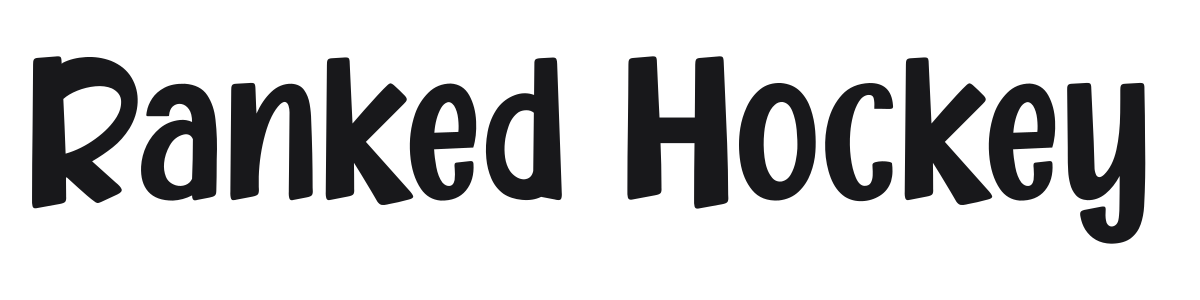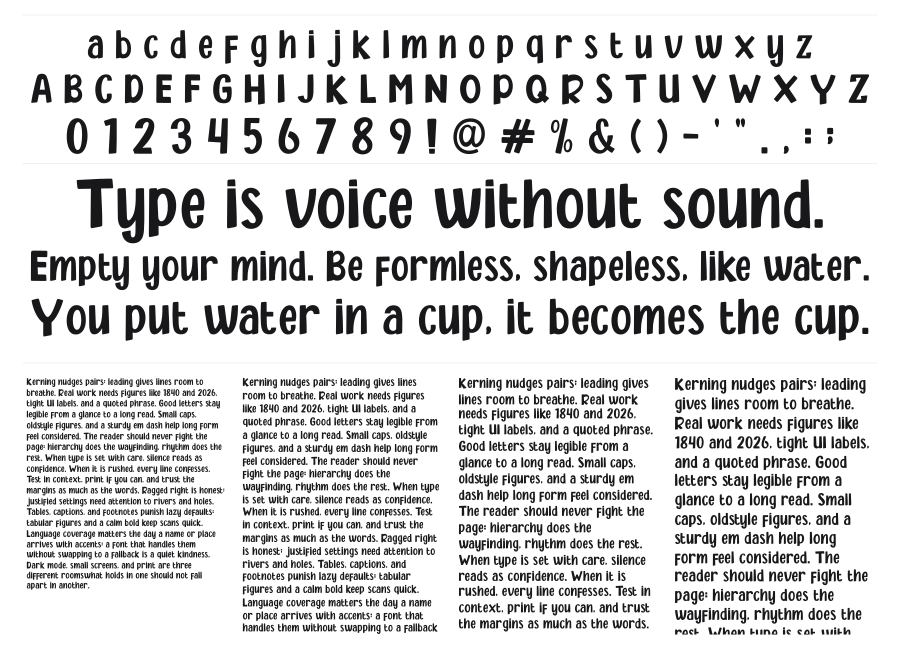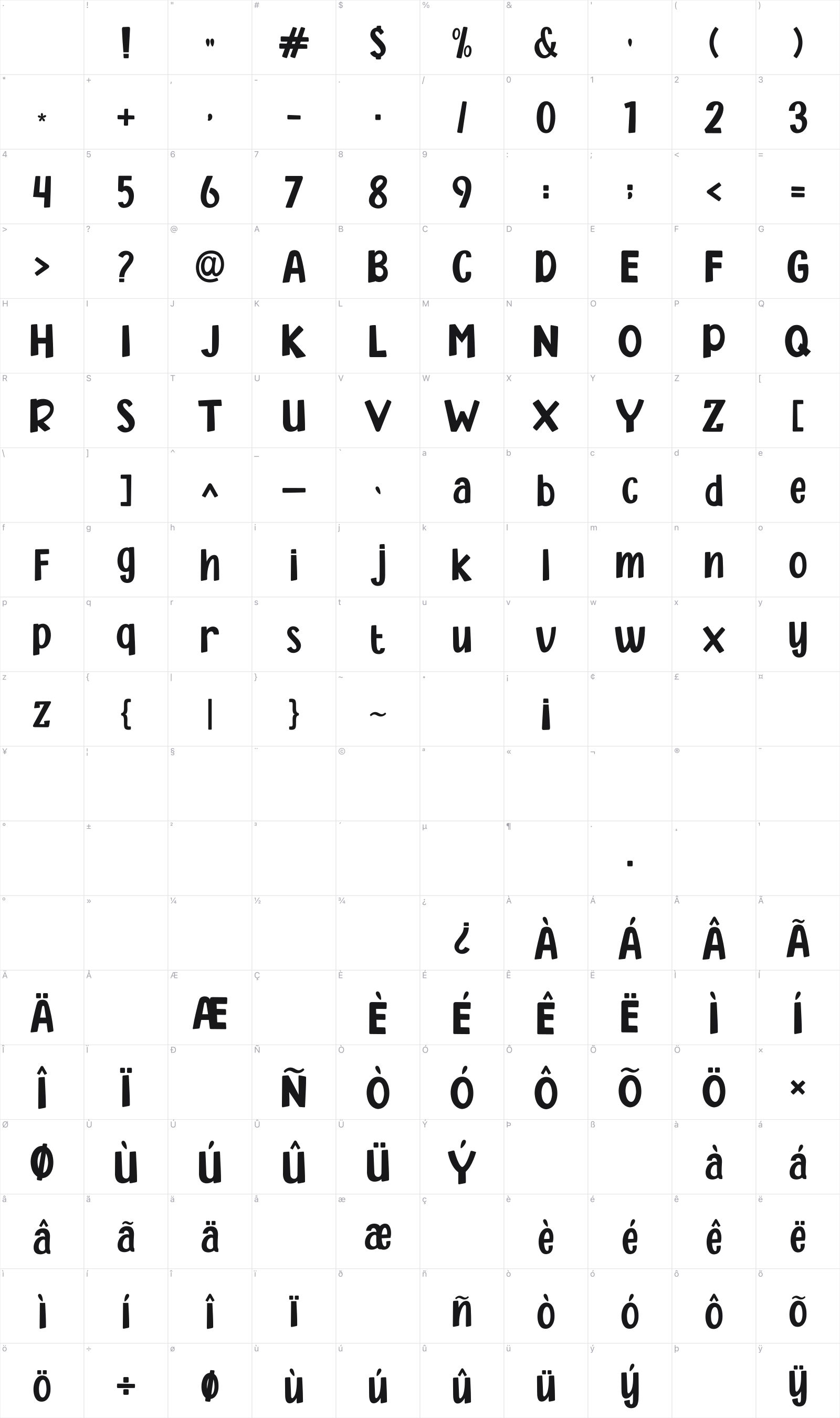
Ranked Hockey
Ranked Hockey is a bold, rounded display font with thick strokes and a playful hand-drawn character. Letters carry just enough irregularity in their terminals and curves to feel energetic without becoming sloppy. It works well for sports branding, kids content, and any headline that needs presence and personality.